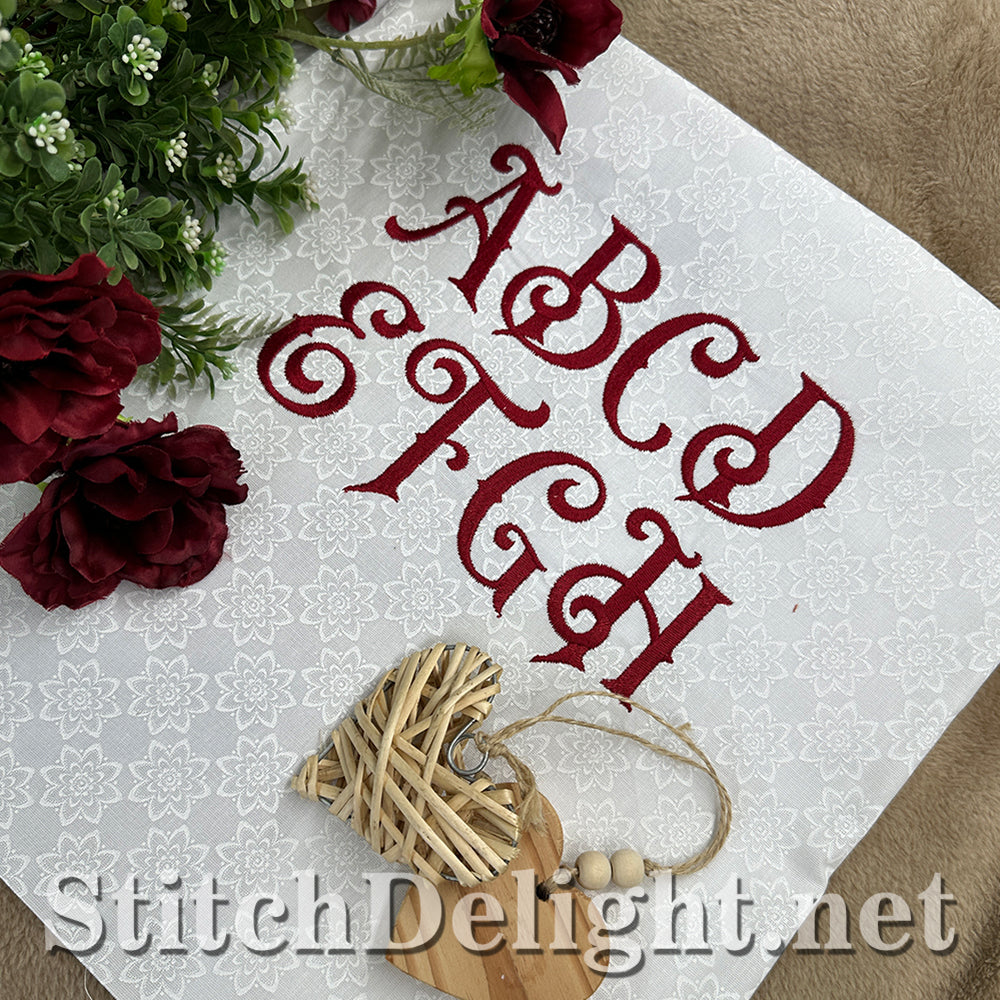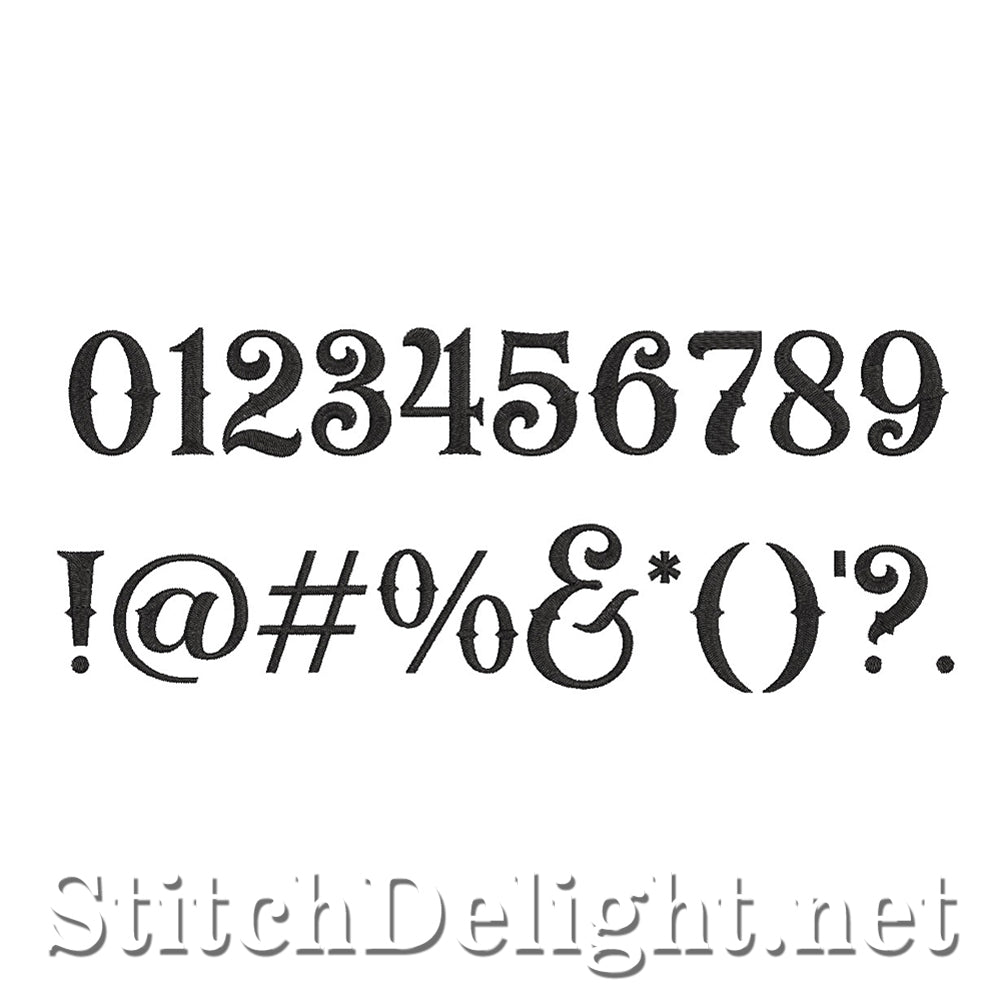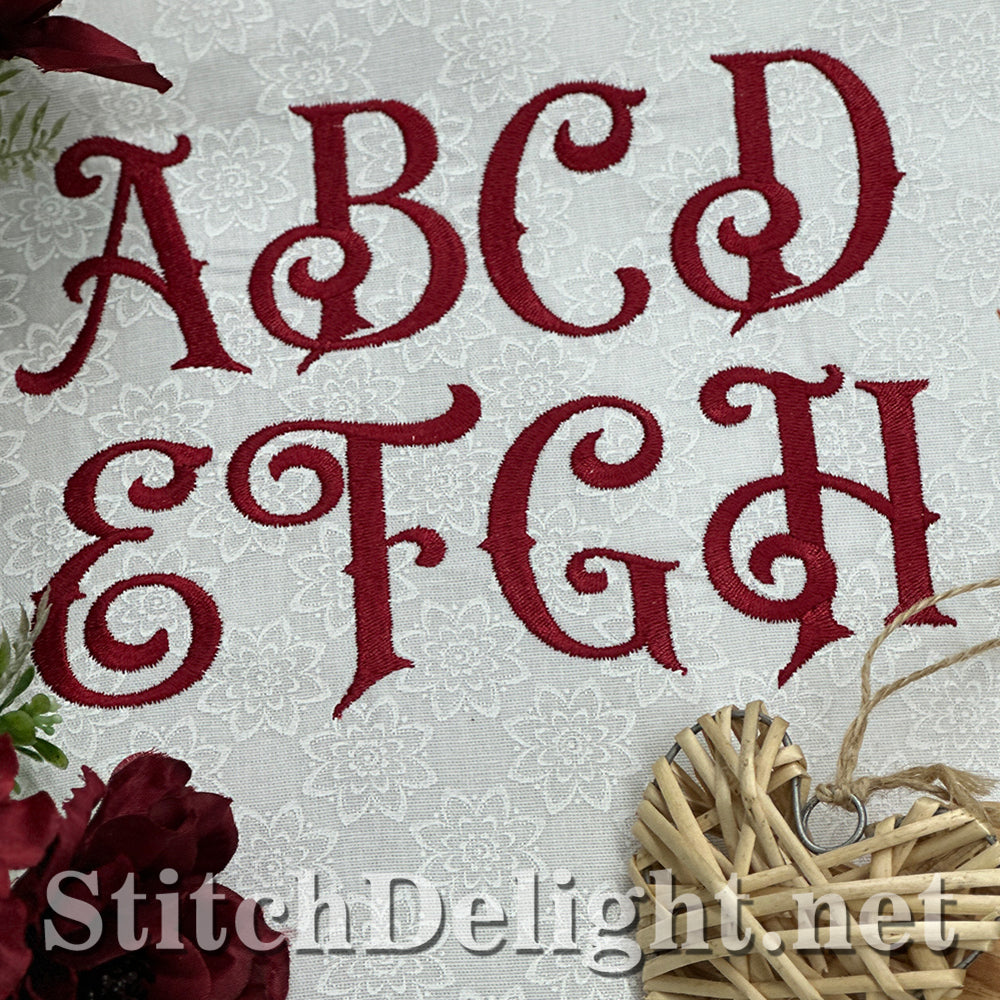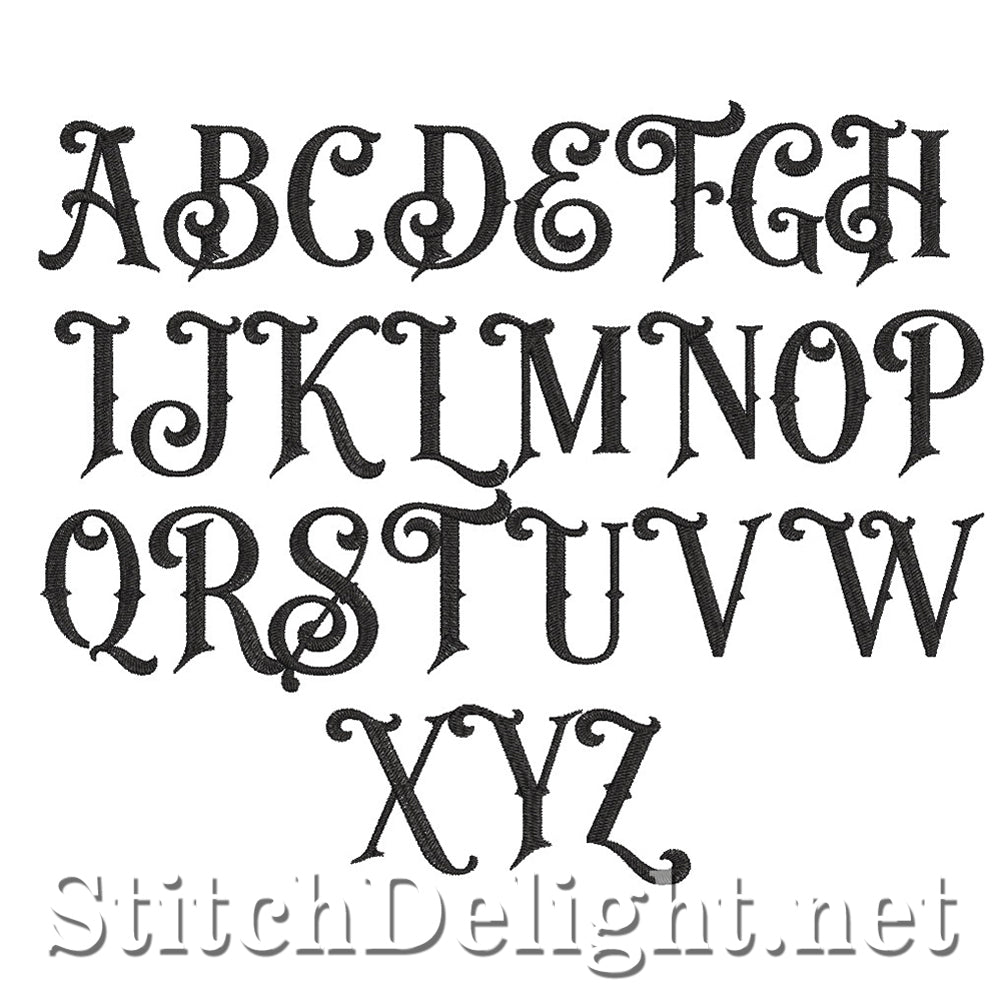
If you're looking for the perfect font for your next Christmas project, then look no further.
With an average height of just 2.5" for the fancy uppercase letters and 1.8" for the smaller letters this font is the perfect font to personalize your next project.